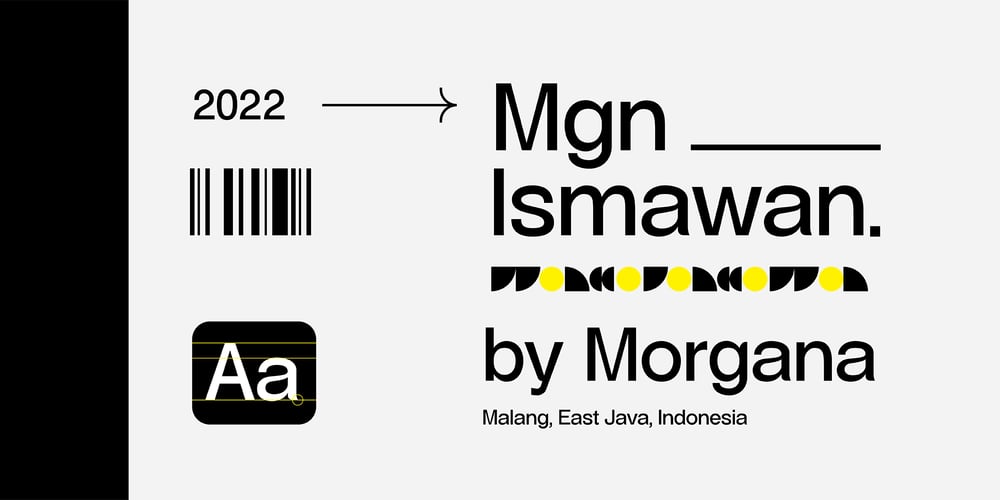
MGN Ismawan Font Family was designed by Muhamad Masyhuri, Fattah Setiawan and published by Morgana Studio. MGN Ismawan contains 1 styles and family package options. MGN Ismawan. This font was created in 2022 and was inspired by the Helvetica font. With a standard shape and being a bit wide, this font is suitable for writing, but for headlines, we think it’s still OK. There are several forms of this font that have a distinctive character, which makes this font suitable for logo writing.